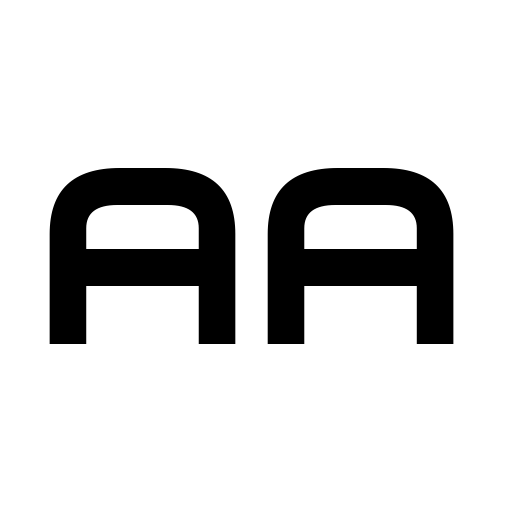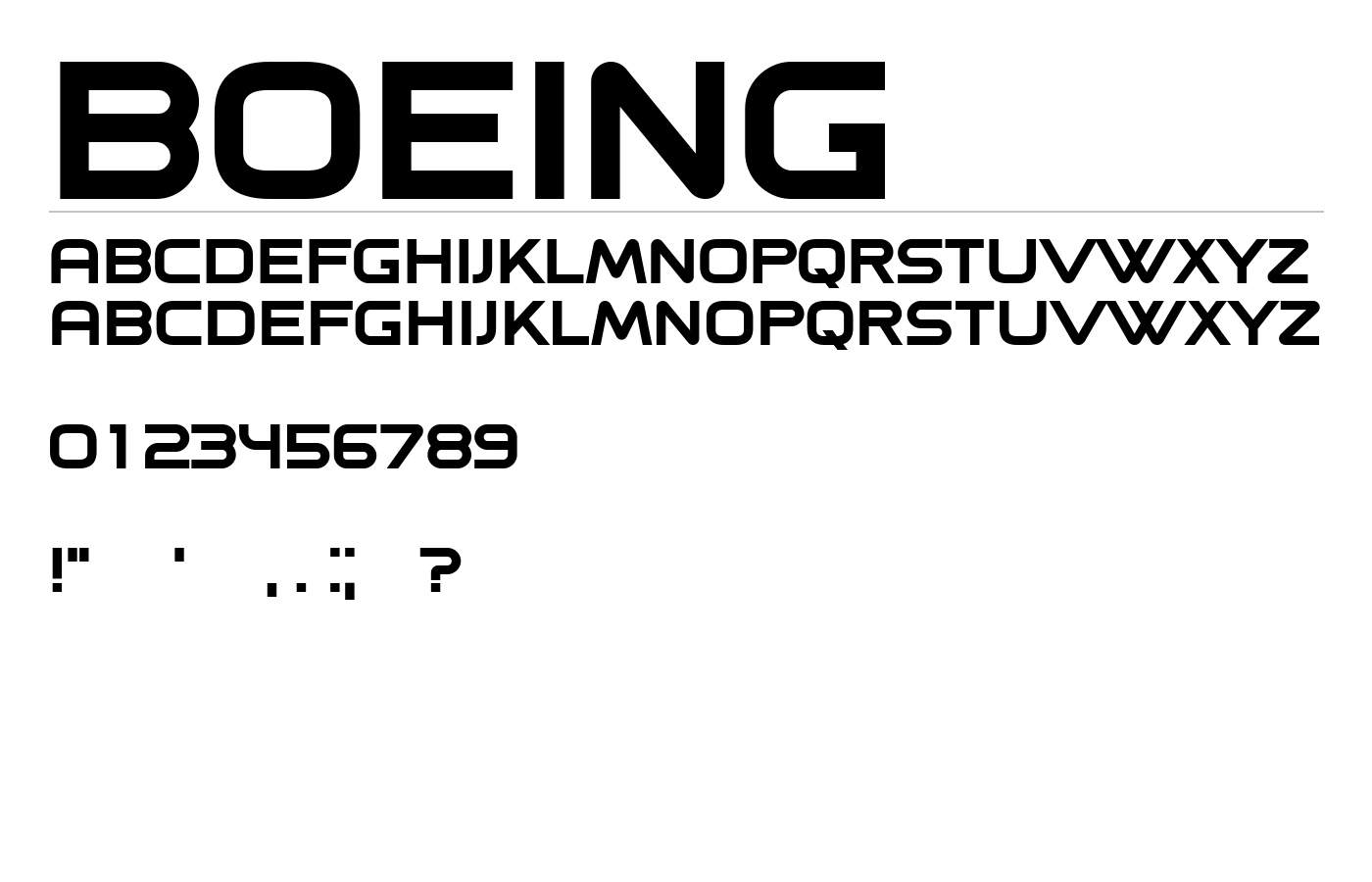
Boeing Font is a sleek, modern sans-serif typeface characterized by its bold weight, slightly condensed width, and geometric letterforms with rounded corners. It conveys a futuristic and technical feel, making it ideal for branding, headlines, and designs related to technology, aviation, or innovation, where clarity and a strong visual impact are essential.
Boeing Font
About Boeing Font